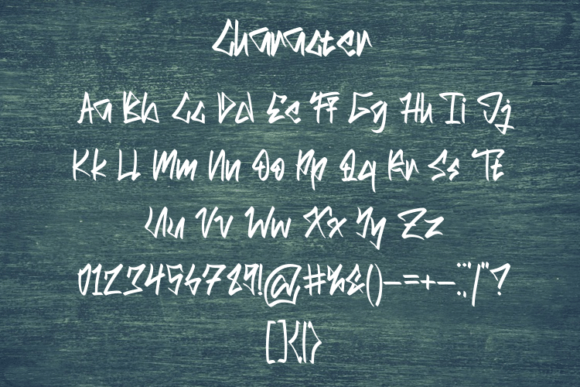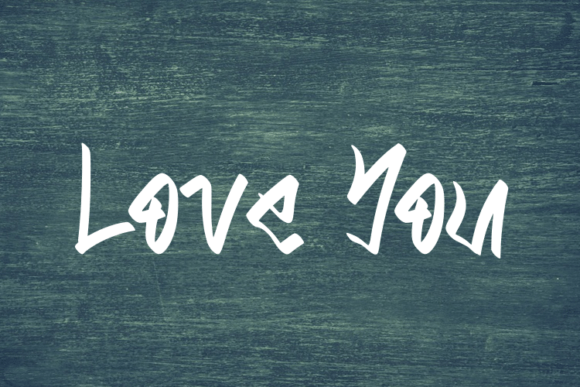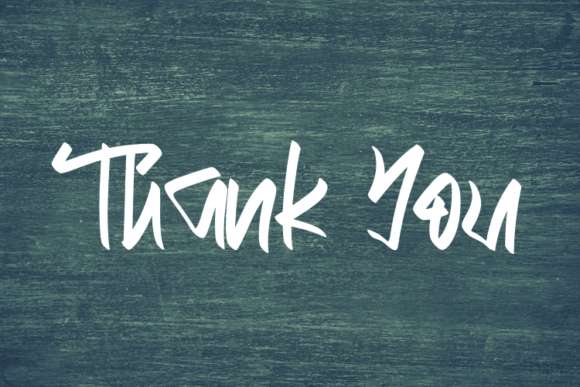
Introducing Grafarart Font: Elevate Your Designs with Elegance and Luxury
In the world of typography, a font can make or break a design. For designers and crafters looking to add a touch of sophistication and modernity to their projects, Grafarart Font is an excellent choice. This script typeface boasts a rushed style and a modern look, making it perfect for a wide range of applications, from elegant logos and book or movie titles to fashion brands, magazines, and more.
What is Grafarart Font?
Grafarart is a carefully crafted script typeface that exudes a sense of urgency and modernity. Its unique rushed style gives it a distinctive edge, setting it apart from more traditional fonts. This modern look makes Grafarart Font an ideal choice for designers who want to create a lasting impression. Whether you’re working on a luxury brand, a fashion magazine, or a high-end product, Grafarart Font is sure to elevate your design.
Key Features of Grafarart Font
- Rushed Style: Grafarart Font’s rushed style gives it a dynamic and energetic feel, perfect for designs that need to convey a sense of urgency or modernity.
- Modern Look: With its clean lines and contemporary aesthetic, Grafarart Font is ideal for designers who want to create a fresh and modern look.
- Elegant and Luxurious: Despite its modern edge, Grafarart Font still manages to convey a sense of elegance and luxury, making it perfect for high-end designs.
- Versatile: Grafarart Font can be used for a wide range of applications, from logos and titles to magazines and clothing.
Use Cases for Grafarart Font
Grafarart Font’s versatility makes it suitable for various design projects. Here are some use cases where Grafarart Font truly shines:
- Elegant Logos: Create a lasting impression with a luxurious logo that incorporates Grafarart Font.
- Book or Movie Design Titles: Add a touch of sophistication to your book or movie titles with Grafarart Font’s elegant and modern look.
- Fashion Brands: Elevate your fashion brand with Grafarart Font’s luxurious and modern aesthetic.
- Magazines: Use Grafarart Font to add a touch of elegance and sophistication to your magazine designs.
- Clothing: Create eye-catching clothing designs with Grafarart Font’s unique and modern look.
- Fonts and Quotes: Use Grafarart Font to create stunning font designs and quotes that are sure to impress.
Why Choose Grafarart Font?
With so many fonts available, why choose Grafarart Font? Here are a few reasons why Grafarart Font stands out:
- Unique Style: Grafarart Font’s rushed style and modern look make it a unique addition to any design.
- Elegance and Luxury: Grafarart Font conveys a sense of elegance and luxury, making it perfect for high-end designs.
- Versatility: Grafarart Font can be used for a wide range of applications, making it a versatile addition to any designer’s toolkit.
- Easy to Read: Despite its rushed style, Grafarart Font remains easy to read, making it perfect for body text and headlines.
In conclusion, Grafarart Font is an excellent choice for designers and crafters looking to add a touch of elegance and luxury to their designs. Its unique rushed style and modern look make it perfect for a wide range of applications, from logos and titles to magazines and clothing. With its versatility, elegance, and modern aesthetic, Grafarart Font is sure to elevate your designs and make them stand out.